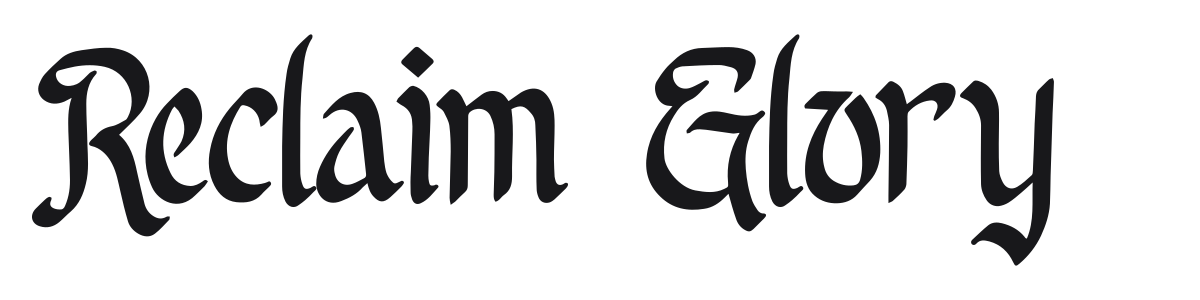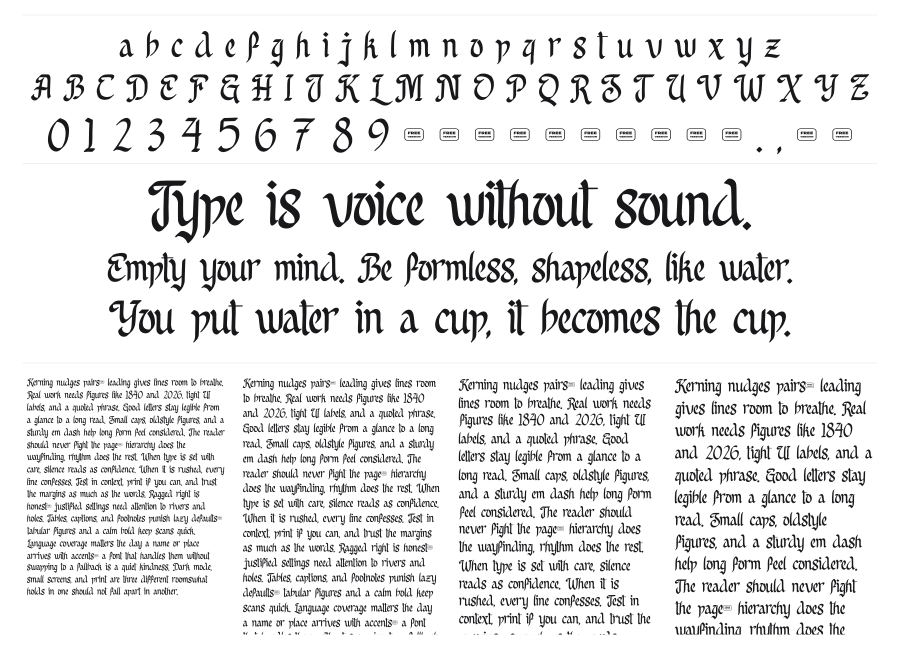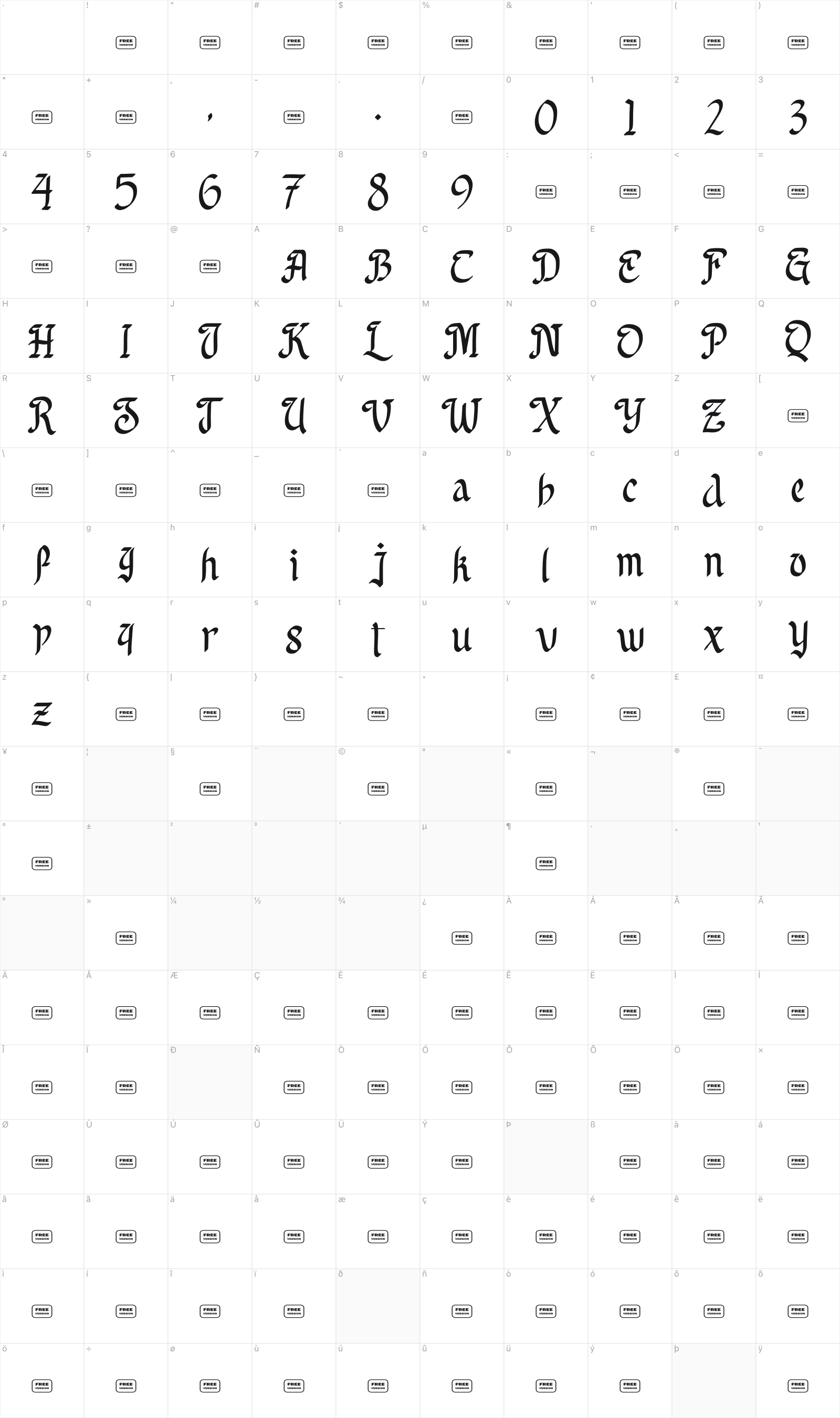
Reclaim Glory
Reclaim Glory is a bold gothic blackletter with deep roots in medieval calligraphy and a decidedly modern edge. The high contrast between thick strokes and sharp hairlines, combined with curling finials and pointed terminals, gives it an organic heaviness that reads as powerful without feeling stiff. It suits brand identities, labels, and logos that want to project strength, heritage, or raw attitude.